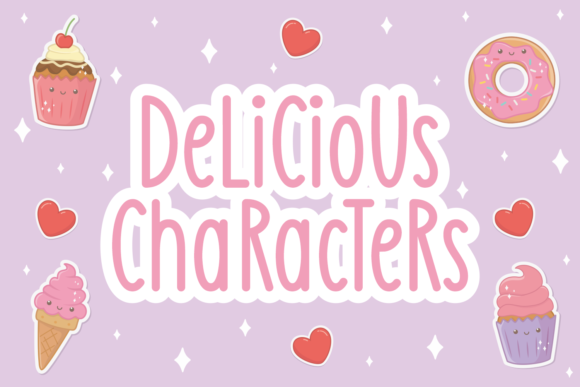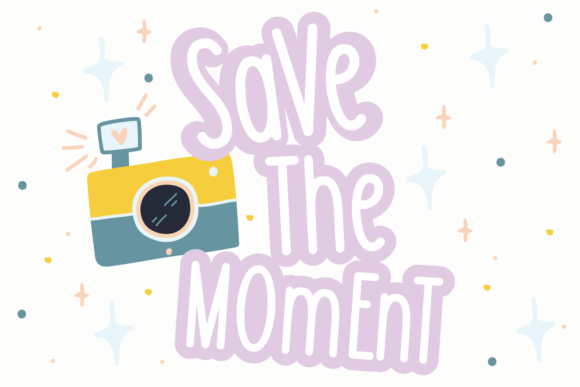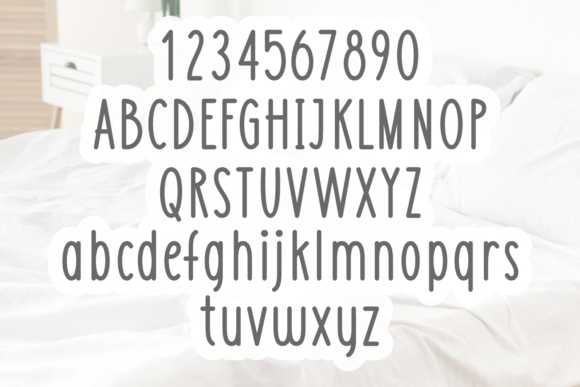
Introduction to Radhila Font
Have you ever found yourself staring at a blank piece of paper, waiting for inspiration to strike? That’s exactly what happened to me the other day, as I sat down to create a special birthday card for a loved one. I wanted something truly unique and personal, but my usual design resources just didn’t seem to fit the bill. That’s when I stumbled upon the Radhila Font – a magical handwritten font that has since become my go-to design resource.
As designers, we’re always on the lookout for that special something that sets our creative projects apart. The Radhila Font is just that – a high-quality, free download that offers a transparent background and a level of elegance that’s hard to resist. Whether you’re crafting greeting cards, designing logos, or creating stationery, this font is sure to elevate your work and make it truly stand out.
Key Features of Radhila Font
- High-quality design for creative projects, ideal for those seeking a unique and stylish font.
- Transparent background, allowing for seamless integration into designs with complex backgrounds.
- Resolution-independent, ensuring crisp and clear text regardless of the output resolution.
- Perfect for use in graphic design, digital art, and other creative projects where a distinctive font is desired.
- Can be easily resized without losing its unique character, making it suitable for a wide range of design applications.
Honest Review: Radhila Font
As a designer, I’ve had the chance to experiment with the Radhila Font, and I must say it’s been a mixed bag. On the plus side, the Radhila Font has a ✨ unique aesthetic that’s perfect for creative projects that require a touch of elegance. I appreciate how easy it is to use and customize, making it a great addition to my design resource library.
One of the standout features of the Radhila Font is its high-quality design, which makes it perfect for print materials like business cards and brochures. I also appreciate that it’s available for free download, making it an accessible option for designers on a budget.
- ✨ Unique aesthetic
- Easy to use and customize
However, I do have to mention that the Radhila Font’s transparent background can be a bit tricky to work with, especially when it comes to designing for digital platforms. Additionally, the font’s limited character set may not be suitable for complex texts or long-form content. ⚠️ These limitations are definitely something to consider before adding the Radhila Font to your design arsenal.
Overall, I think the Radhila Font is a solid choice for designers looking to add a touch of sophistication to their creative projects. While it may have some limitations, its unique aesthetic and high-quality design make it a valuable resource for designers of all levels.
Use the Radhila Font on a transparent background to create a modern and minimalist design. Experiment with different font sizes and styles to add visual interest to your project. You can also pair the Radhila Font with other high-quality fonts to create a unique and creative design resource.
The Radhila Font is ideal for designing creative projects, such as logos, brochures, and business cards. Its high-quality design and free download make it a popular choice among designers. You can also use the Radhila Font to create eye-catching social media graphics and presentations.